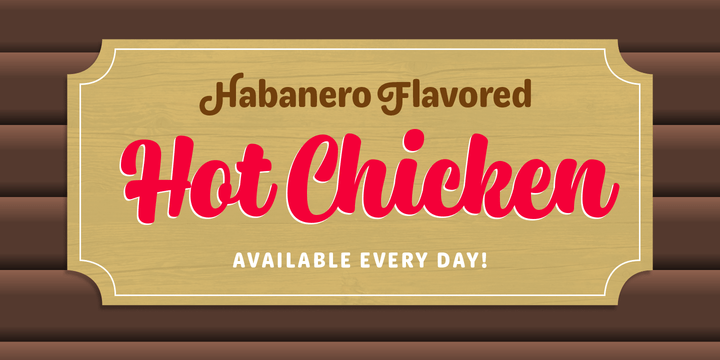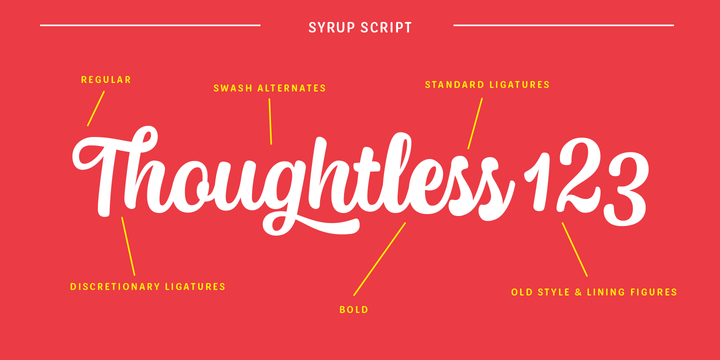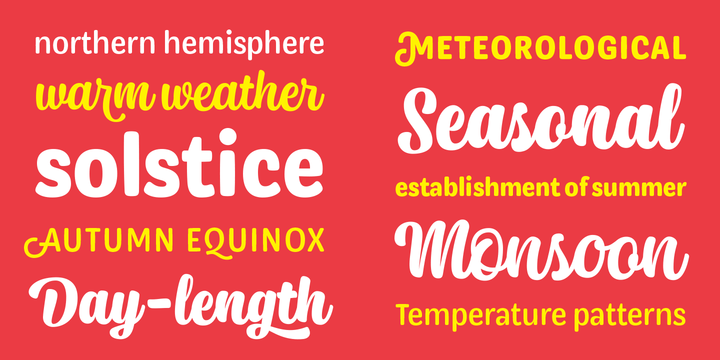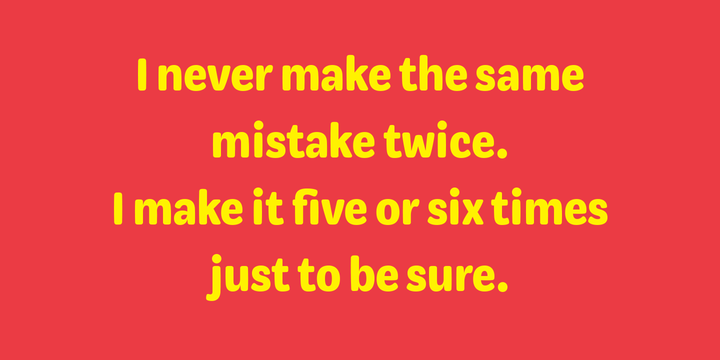
About Syrup
Syrup is a friendly, subtly rounded type family combining sans and script styles. It\’s aesthetic roots are in the sign painting of the 1950\’s but the execution is distinctly modern. The different styles are designed to work well together so you can have…